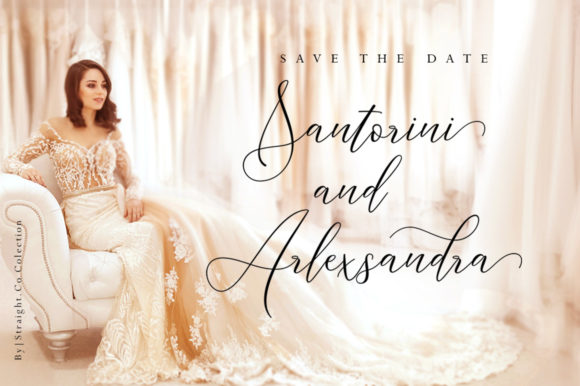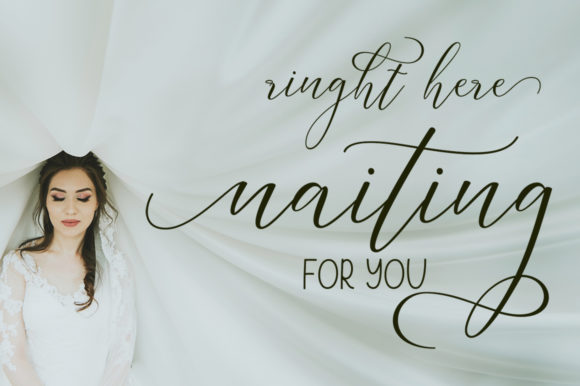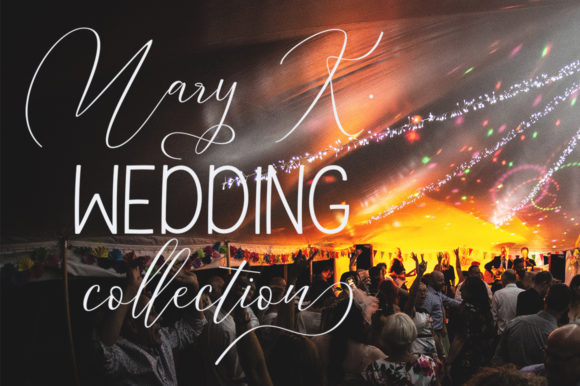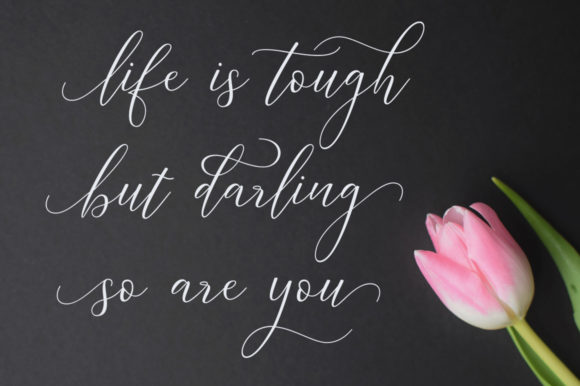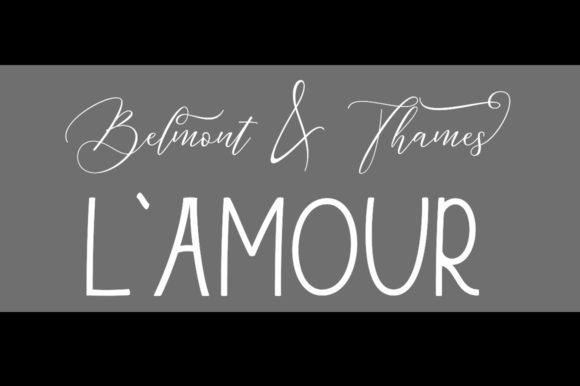
HomeScript FontsWosella Duo Font Script Fonts Wosella Duo Font FacebookXPinterestWhatsApp Wosella Duo Font Poster 2 Wosella Duo Font Poster 3 Wosella Duo Font Poster 4 Wosella Duo Font Poster 5 Wosella Duo Font Poster 6 About Wosella Duo Font Wosella is a dynamic and bold dont duo that will easily turn any design project into a true stand out. DOWNLOAD ON CREATIVE FABRICAThis font is sold and delivered by Creative Fabrica. Font Canyon may earn a commission if you buy through this link. People also explored Ferishley Sunshine Font Mandala Monogram Font Vacation Font Think Music Font Magic Tape Font Cupid Font Gillattoz Font Ghoes Balley Font Sweetie Night Font 300 0 TagsWosella Duo Font Previous articleMegleen FontNext articleWonderfull Font LEAVE A REPLY Cancel reply Comment: Please enter your comment! Name:* Please enter your name here Email:* You have entered an incorrect email address! Please enter your email address here Website: Save my name, email, and website in this browser for the next time I comment. Personal Use Free Glosery Personal Use Free Read more about this font Airmole Personal Use Free Read more about this font Colombia Personal Use Free Read more about this font Adelfa Personal Use Free Read more about this font BLOG Top 7 Google Fonts Alternatives for Faster and Privacy-Friendly Web Design (2025) Top 7 Google Fonts Alternatives for Faster and Privacy-Friendly Web Design (2025) When it comes to web typography, Google Fonts has long been the go-to... Best Fonts for T-Shirt Design – Top 2025 Picks Free vs Paid Fonts: Why Investing in Premium Fonts Is Worth It Where to Buy American Fonts Online in 2024